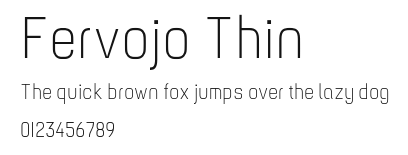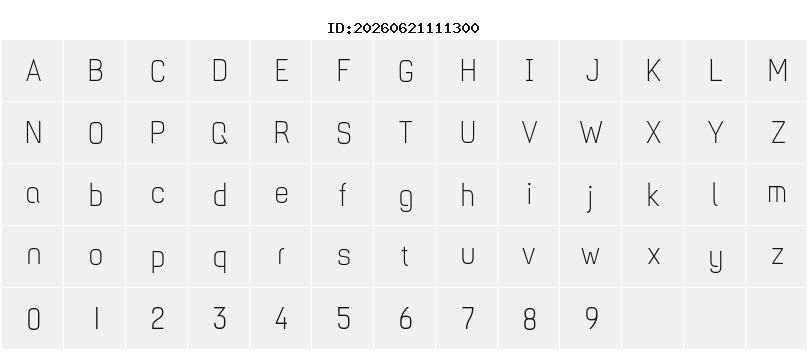
• Font Name: Fervojo Thin
• Full Font Name: Fervojo Thin
• Designer: kohakuno
About Fervojo Thin.otf
Fervojo Thin.otf is a modern, elegant sans-serif font designed for ultimate readability and visual harmony. Perfect for branding, headlines, web design, and print materials.